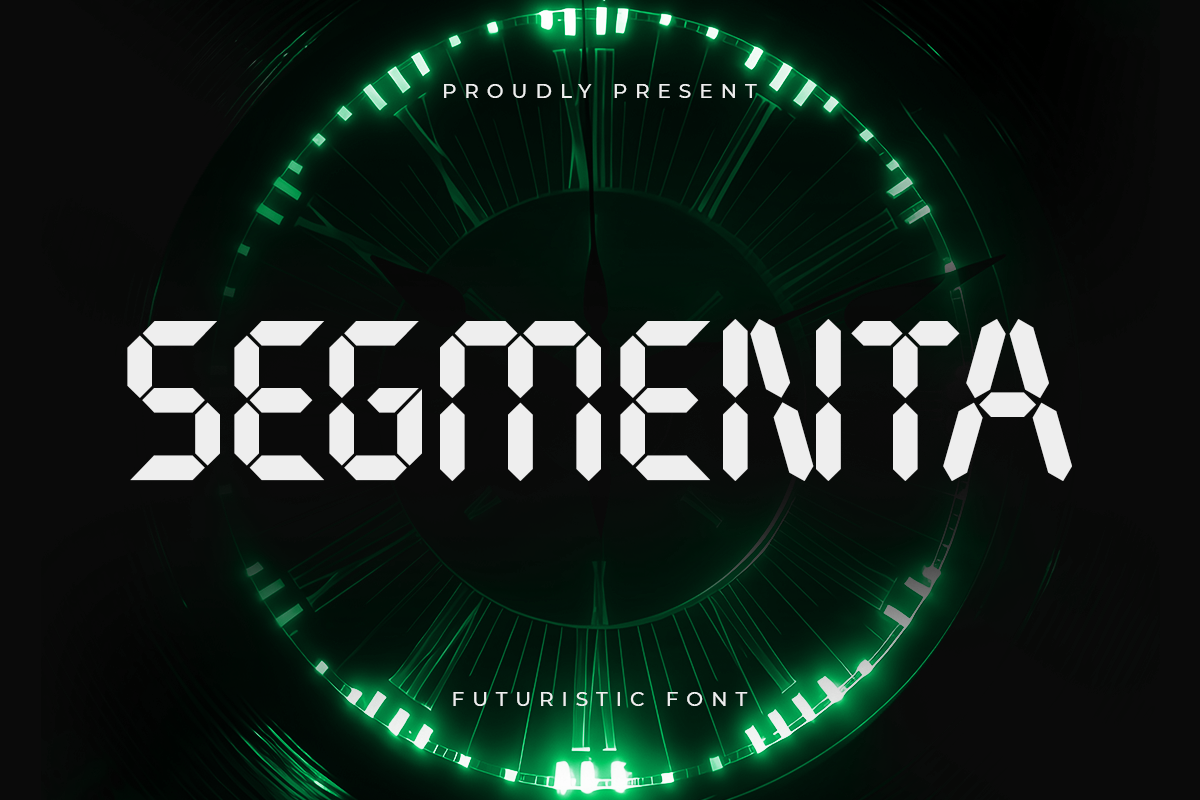
Segmenta - Futuristic Segment Font
Transform your designs with Segmenta, the futuristic seven-segment font that brings digital technology to life. Segmenta is specially crafted for digital design projects that demand a cutting-edge technological aesthetic. This futuristic typeface captures the essence of binary systems, sci-fi themes, and modern technology with its distinctive seven-segment display styling. Perfect for creating standout typography that commands attention in any high-tech project. This font excels in cryptocurrenc...